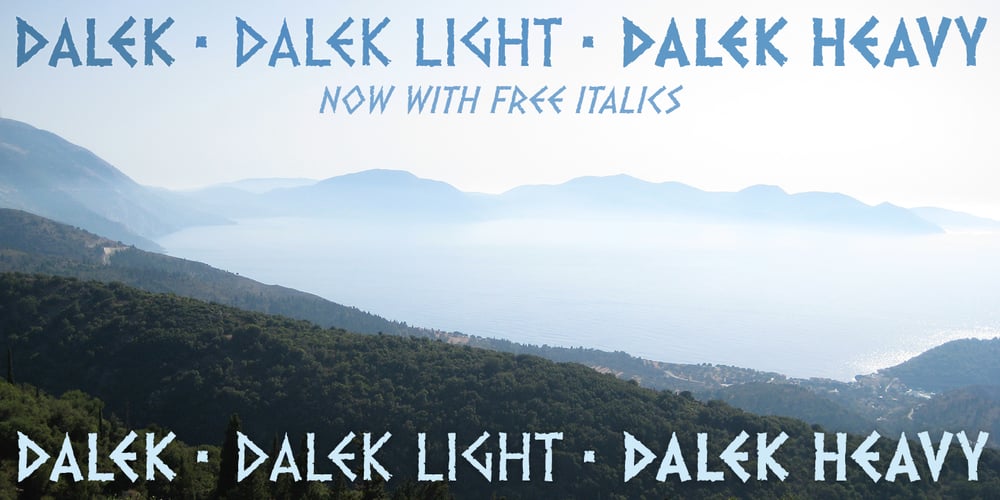
Dalek Font Family was designed by Keith Bates and published by K-Type. Dalek contains 6 styles and family package options. DALEK is a distressed, small caps typeface based on the lettering used in the Dalek Book of 1964 and in the Daleks strip in TV21 comic. The fonts have overtones of Greek, Phoenician and Runic alphabets. The updated Dalek fonts contain a full complement of Latin Extended-A characters, and also include Greek capitals and small caps. In addition to the original Regular font, Heavy and Light weights are available, and optically corrected obliques for each weight. Also check out Dalek Pinpoint, a clean and precise version of the Dalek typeface.